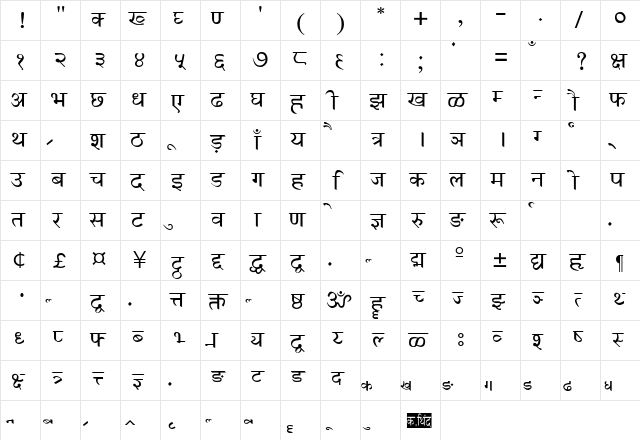
AmrHindi Regular
Design Context for AmrHindi Typeface
AmrHindi offers clean, dependable letterforms without strong stylistic allegiance, making it a practical choice for designers who need flexibility.
Pro Tip: Use AmrHindi in both headline and body roles to test its range before committing to a single application.